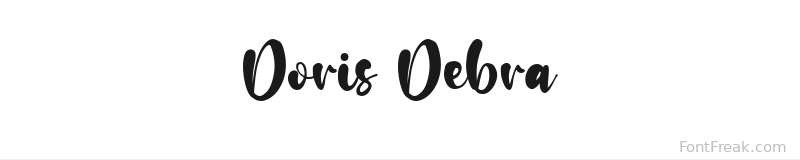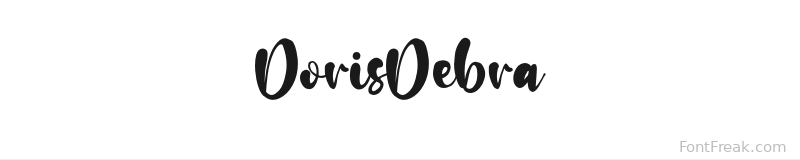
Doris Debra
DorisDebra
Doris Debra, crafted by Kong Font in 2021, is a striking script typeface that elegantly combines modern flair with a touch of classic charm. This font exhibits smooth, fluid strokes that create a sense of movement, perfect for adding a personal touch to any project. The contrast between thick and thin strokes gives it a dynamic quality, while the slightly irregular spacing enhances its handwritten feel. Decorative elements, such as graceful loops and swashes, contribute to its unique personality, making it an eye-catching choice for various applications.
Doris Debra is particularly well-suited for wedding invitations, where its romantic style can set the tone for an unforgettable celebration. Additionally, it shines in creative fields like branding for artisanal products, where it can convey a sense of authenticity and craftsmanship. Movie posters also benefit from the font's dramatic flair, allowing for impactful titles that draw viewers' attention. Restaurant menus can use Doris Debra to highlight special dishes or promotions, adding an inviting warmth that encourages diners to explore. Content creators, graphic designers, and small business owners will find this font invaluable for its versatility and aesthetic appeal.
The target audience for Doris Debra includes those looking to elevate their visual communications with a touch of elegance and personality. Whether you're designing a heartfelt greeting card or a stylish logo, this font brings an element of sophistication that can enhance your work. With its unique blend of contemporary and classic styles, Doris Debra stands out as a distinctive choice in the realm of typefaces. Don’t miss the opportunity to enhance your projects with this beautiful script; you can find the Doris Debra font free download available now.